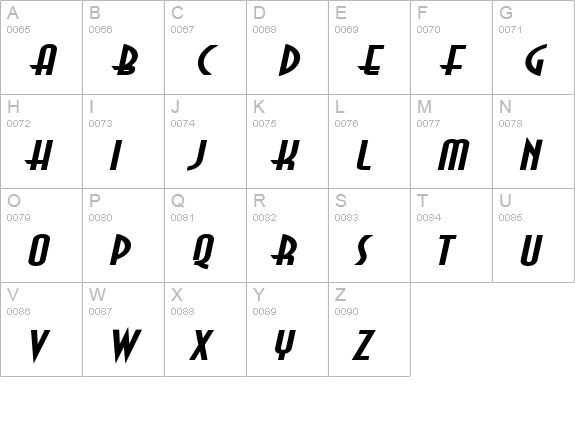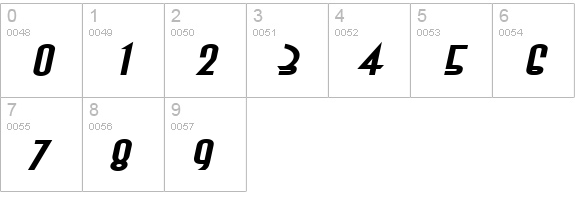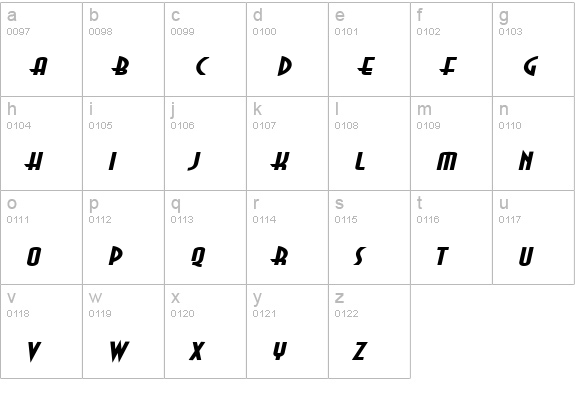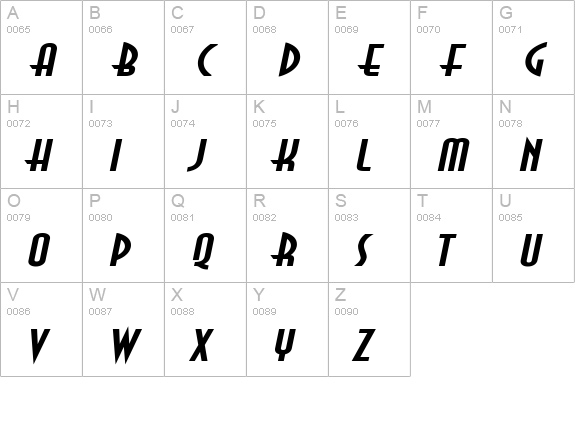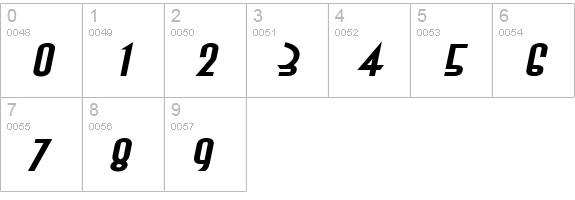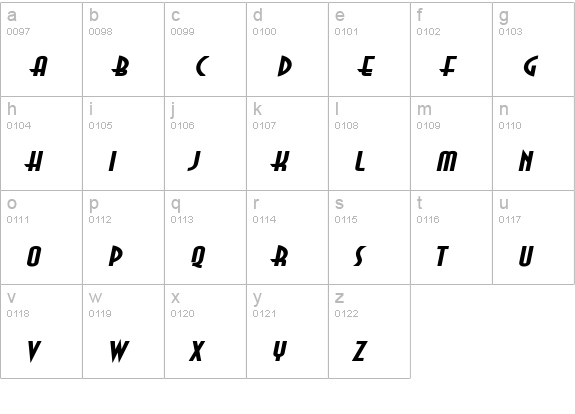
Asia-Extended Bold Italic Font Details
Asia-Extended Bold Italic is a strong, high-contrast, extended-width, italic variant in the Asia typeface family \xE2\x80\x94 well suited to headlines, attention-grabbing titles, and strong calls-to-action.
Asia-Extended Bold Italic is a modern and stylish font that exudes confidence and sophistication. With its bold and italic design, this typeface is perfect for creating eye-catching headlines, titles, and logos. The unique blend of sharp edges and smooth curves gives Asia-Extended Bold Italic a distinctive look that is sure to make your designs stand out. This versatile font is suitable for a wide range of design projects, from branding and advertising to social media graphics and website design. Whether you're looking to make a statement or add a touch of elegance to your work, Asia-Extended Bold Italic is the perfect choice. The best part? Asia-Extended Bold Italic is available for free download at FontsMarket.com. So why wait? Give your designs a bold and stylish edge with Asia-Extended Bold Italic today!